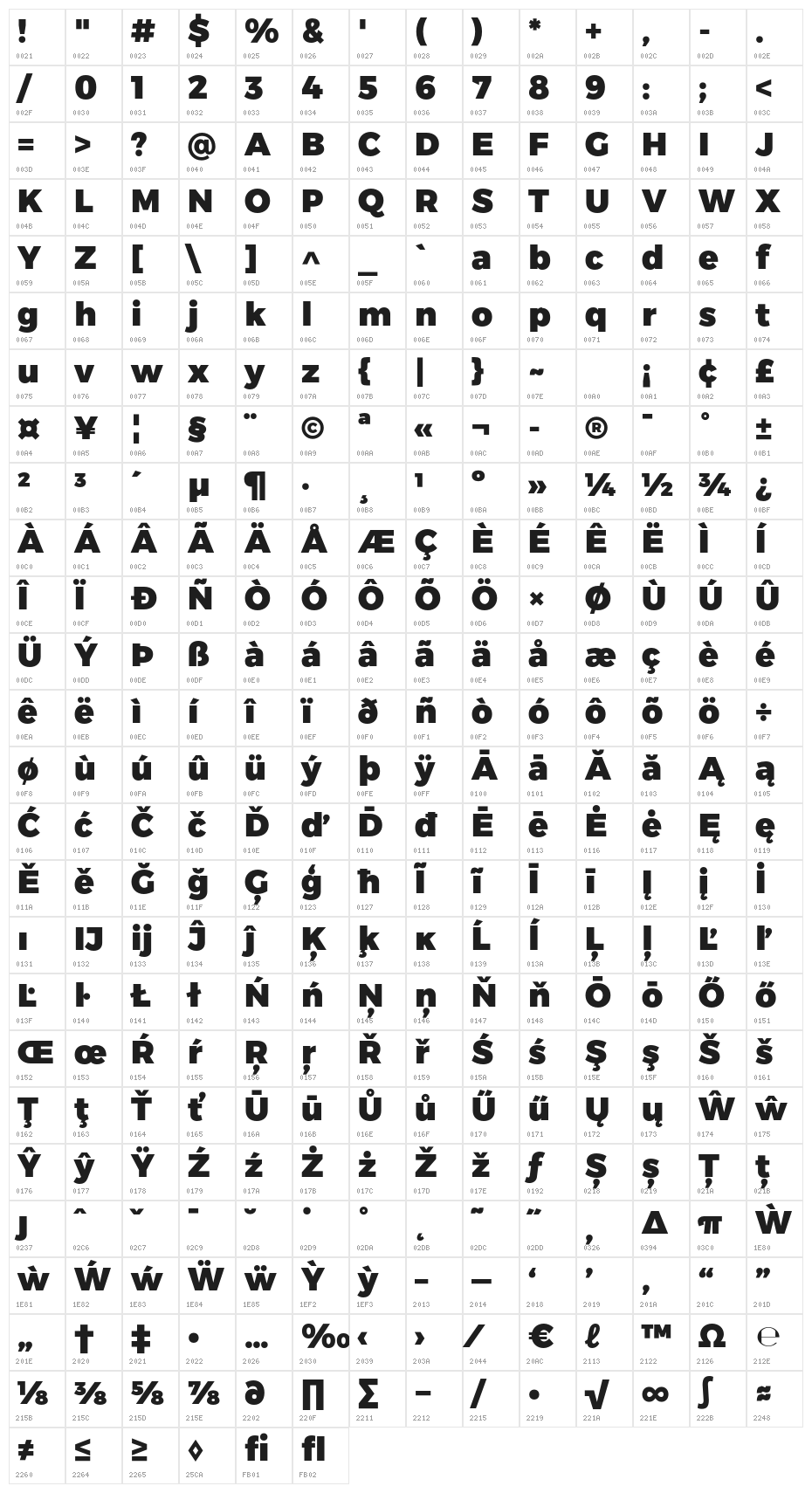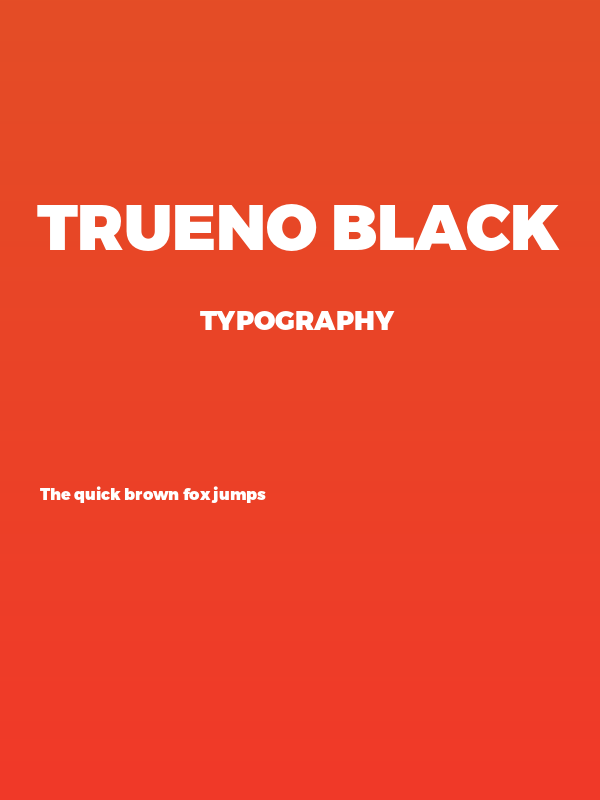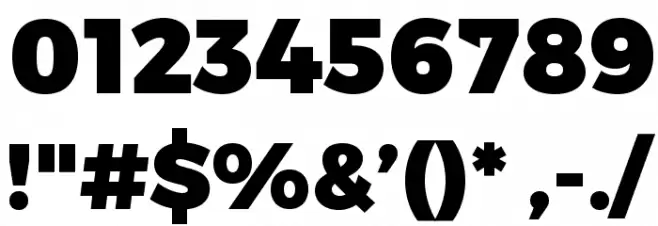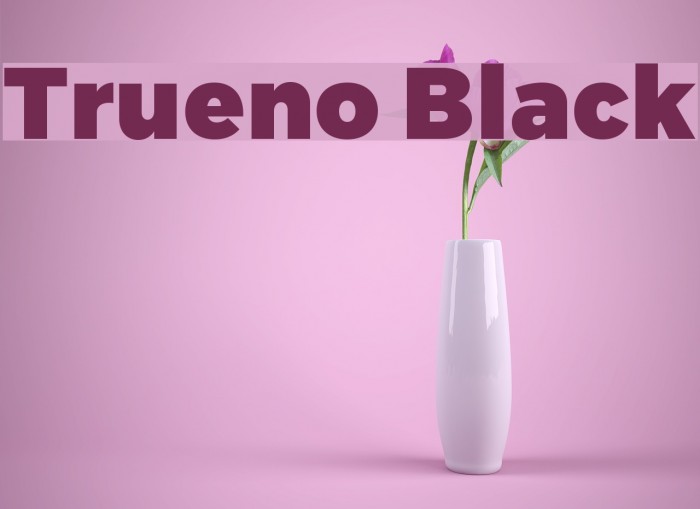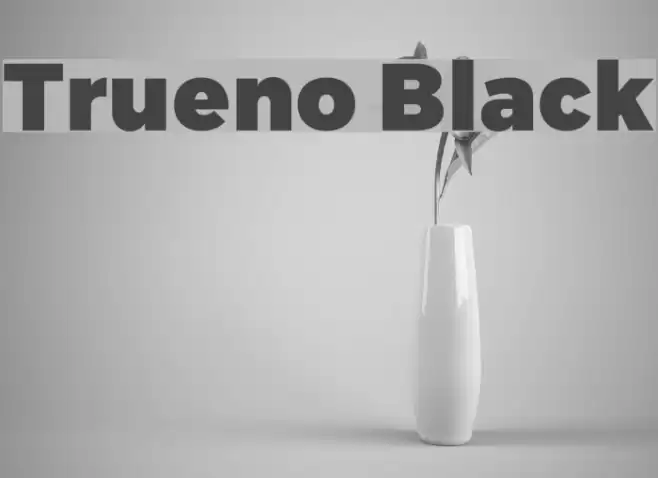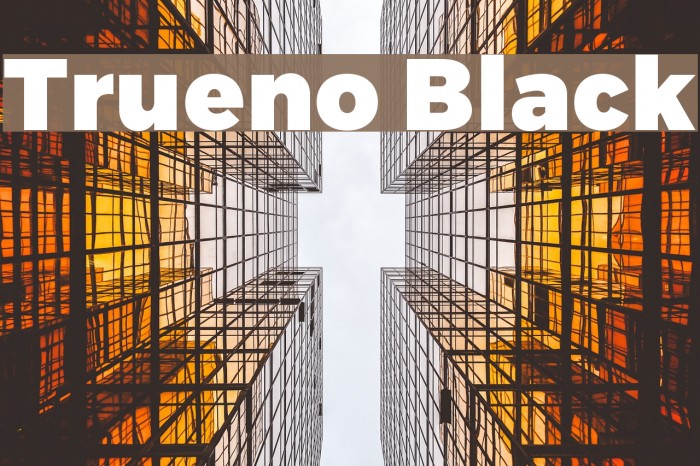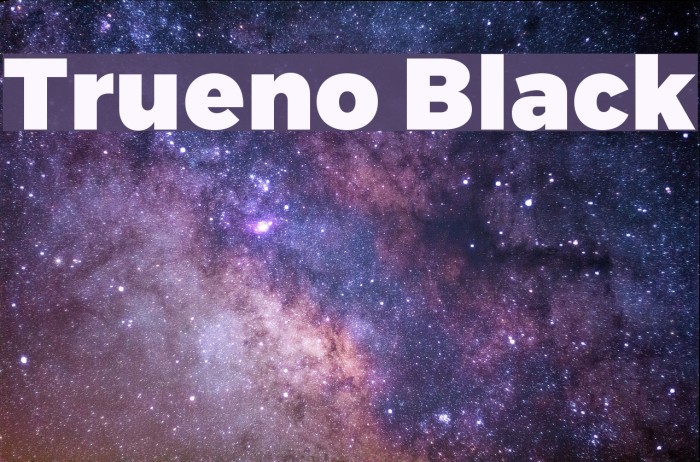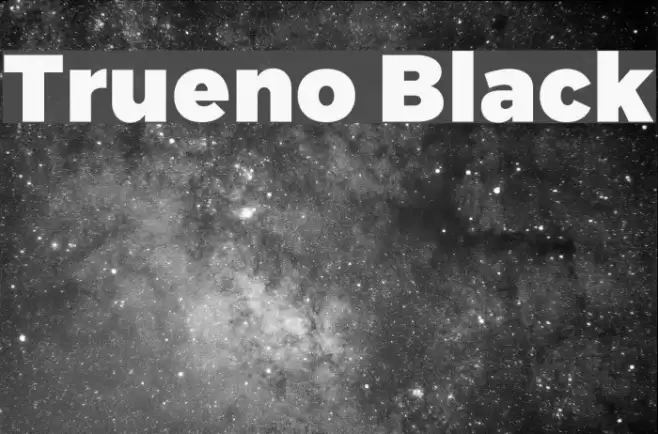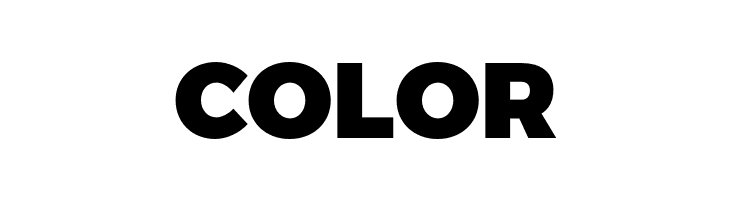
Trueno Black Font
Trueno Black Description
This font is a bold and impactful sans-serif typeface, characterized by its thick, uniform strokes and modern aesthetic. The uppercase and lowercase letters are well-balanced, with a consistent weight that conveys strength and clarity. The numerals are equally bold, ensuring readability and presence. Special characters are designed with the same robust style, making them stand out. The overall design is clean and straightforward, suitable for making a strong visual statement.
| Use Case | Headlines, Logos, Branding |
| Proposed Projects | Ideal for branding, advertising, headlines, and any project requiring a strong, modern typeface. |